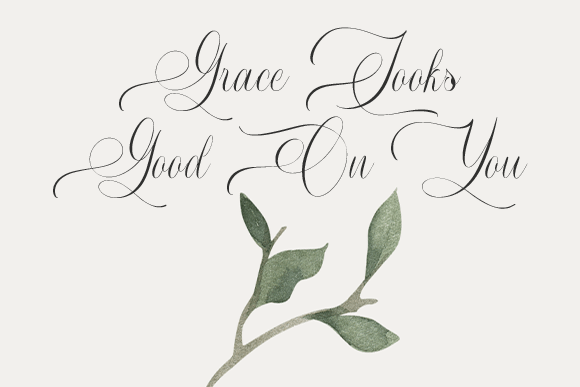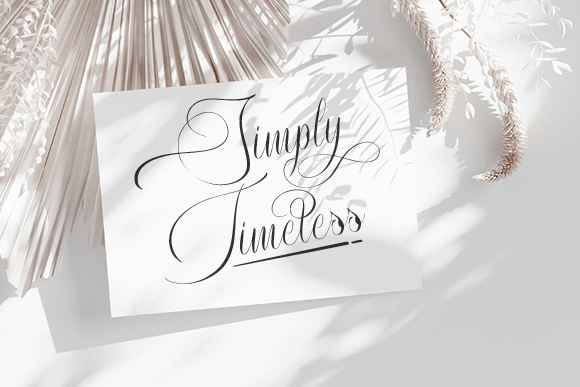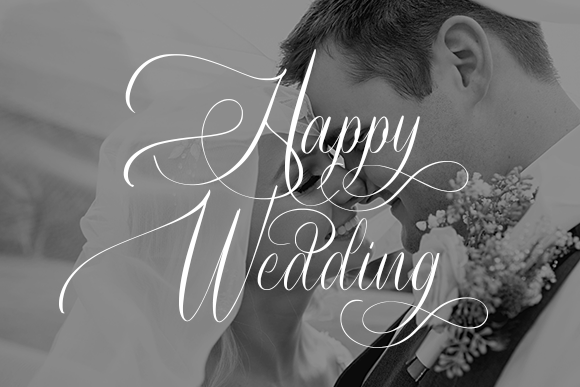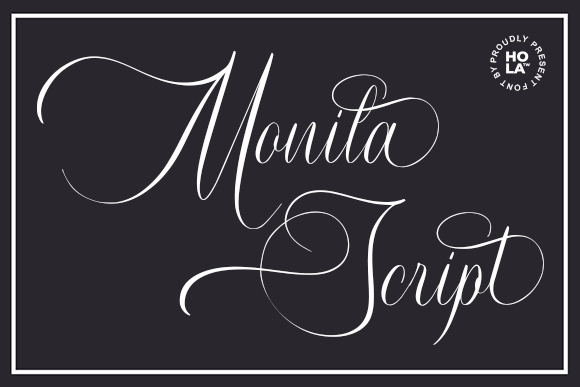
Introduction to Monila Font
Monila Script is a modern elegant script font that blends graceful curves with sophisticated flowing strokes.
Designed with a perfect balance between beauty and readability, this font delivers a luxurious handwritten feel ideal for high-end designs With its smooth swashes and stylish letterforms, Monila Script is perfect for creating eye-catching typography while maintaining a clean and timeless look.